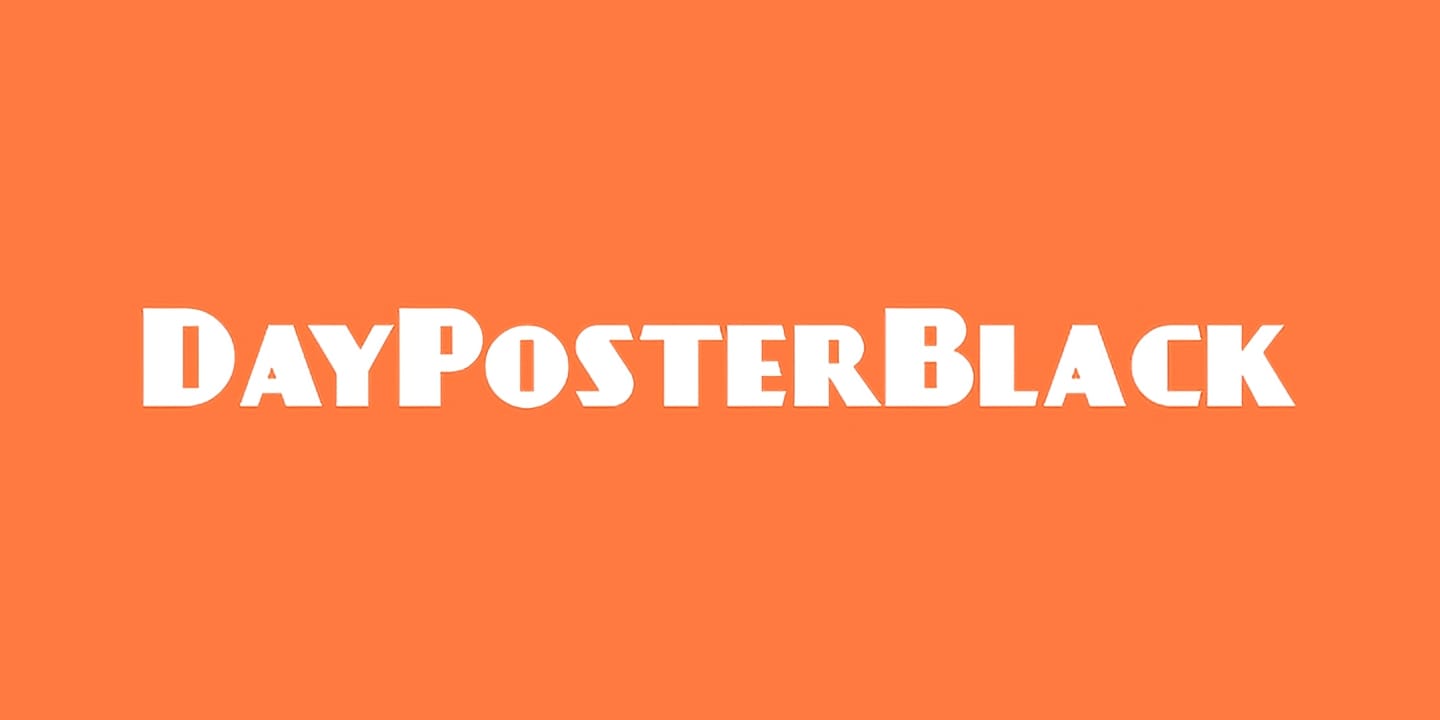
If you’re looking for a stylish font that combines retro aesthetics with modern flair, Day Poster Black is a compelling choice. This display typeface is designed by Nicks Fonts and captures a vintage charm that can enhance various design projects.
The font’s bold and eye-catching appearance makes it suitable for posters, invitations, and branding materials. Its unique character shapes allow for creativity while ensuring readability. You’ll find that Day Poster Black adds an interesting visual element, making your text stand out.